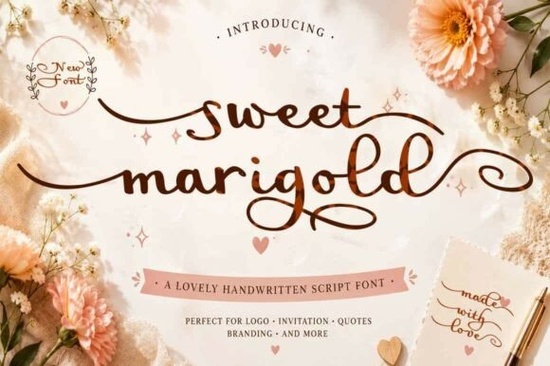
If you're looking for a script font that feels like a soft breeze through a garden of blossoms, Sweet Marigold Font delivers exactly that. It’s not just another cursive typeface it’s a mood, a moment, and a touch of playful charm in every letter. With its flowing lines, delicate gradients, and subtle heart details tucked into the loops, it’s perfect for designs that want to feel personal, warm, and full of character.
What makes Sweet Marigold Font stand out?
Beyond its pretty appearance, what really sets this font apart is how thoughtfully it balances whimsy with professionalism. The animated feel comes from fluid character trails and dynamic swashes each letter seems to bounce gently across the page. The gradient shifts from vibrant purple to soft pink, giving depth without overwhelming your design. And yes, those tiny love hearts? They’re not just decoration; they add a quiet surprise that delights anyone who takes a closer look.
The soft lavender blossoms framing the text make it ideal for seasonal or emotional themes Valentine’s Day cards, baby shower invites, or boutique packaging. You can use it on digital posts, printables, or even embroidery designs. Because it’s designed for both clarity and style, it works well at various sizes, from small labels to large banners.
Where should you use Sweet Marigold Font?
- Valentine’s Day stationery – Think envelopes, gift tags, and handmade cards with a romantic yet fun vibe.
- Independent bakery logos – Perfect for shops that want to feel cozy and artisanal, especially when paired with floral or pastel backgrounds.
- Nursery name prints – Ideal for personalized wall art that parents will cherish.
- Crafting packaging – Great for soap wraps, candle labels, or gift boxes where a handmade feel matters.
- Social media headlines – Use it to draw attention to posts about love, self-care, or creative projects.
You’ll find it fits naturally into any project that values personality over polish. It’s not the best choice if you need something ultra-modern or minimalist but if your goal is warmth and charm, it hits the mark.
How does it compare to similar fonts?
If you’ve explored other cursive fonts like elegant handwriting scripts, you’ll notice Sweet Marigold leans more toward storytelling than formality. Compared to something like Brother Font, it’s less structured and more expressive. Meanwhile, fans of soft romance might appreciate how it shares a vibe with Bride Squad Font, though Sweet Marigold has a lighter, bouncier rhythm.
For those who love bold, stylized scripts with flair, Wistallion Font offers a similar energy but with more dramatic curves and sharper details. Sweet Marigold sits in the sweet spot between all these styles accessible, readable, and full of gentle joy.
Why designers and small creators love it
Whether you're a print-on-demand seller, a crafty hobbyist, or running a small business, this font helps you say “I care” without saying a word. Its natural flow means it pairs well with hand-drawn elements, watercolor textures, or soft pastel palettes. You don’t have to do much to make it look polished just place it right, and it stands out.
For inspiration, check out how others are using it: Sweet Marigold Font appears in everything from wedding invites to children’s book covers. Seeing real examples can help spark your own ideas.
Final thoughts
Sweet Marigold Font isn’t trying to be everything to everyone. It’s doing one thing really well: bringing gentle, heartfelt charm to your work. If you’re drawn to designs that feel handwritten, thoughtful, and slightly magical, this is a strong addition to your toolkit.
Try it on a few mockups. See how it feels with your favorite colors and layouts. Chances are, once you start using it, you’ll want to bring it back again and again.